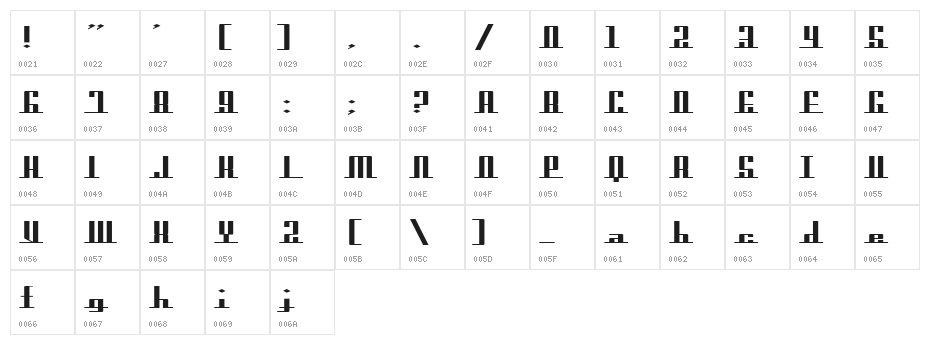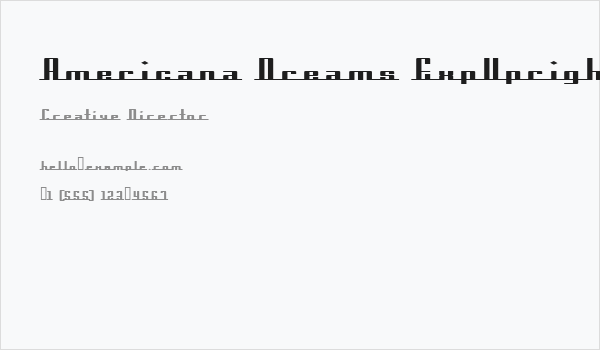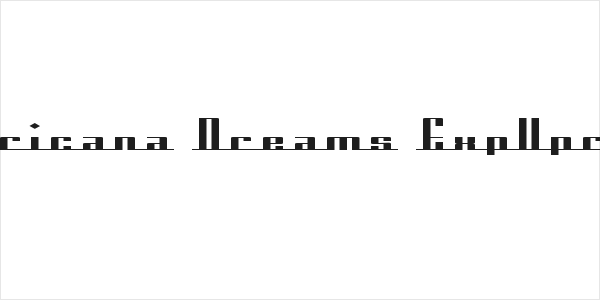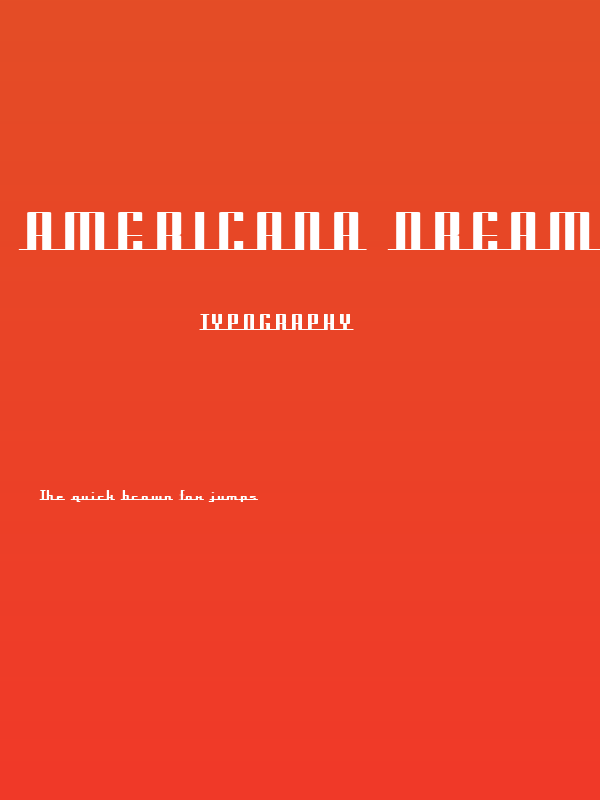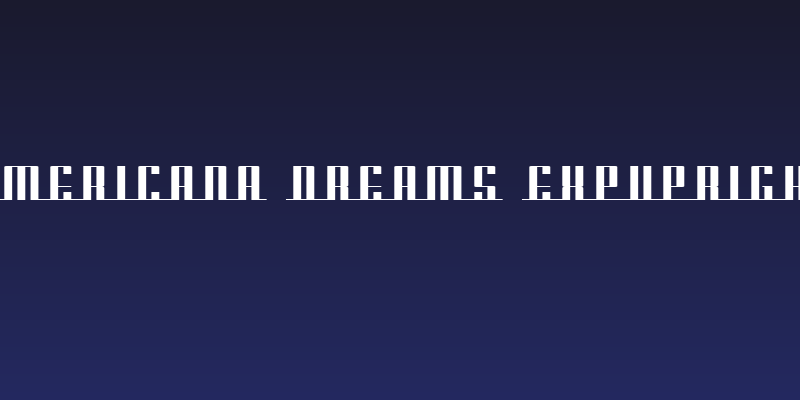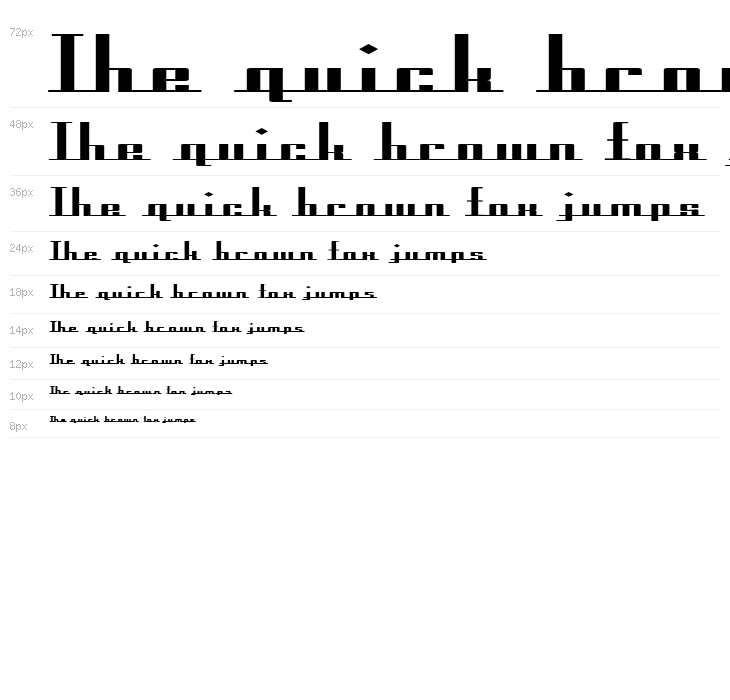
Americana Dreams ExpUpright Font
Americana Dreams ExpUpright Description
This font features a bold and geometric design with a distinctively modern and futuristic aesthetic. The characters are constructed with sharp angles and straight lines, giving them a mechanical and structured appearance. The uppercase letters are tall and narrow, while the lowercase letters maintain a consistent height, creating a uniform look. The numerals and special characters follow the same geometric style, ensuring cohesion across all glyphs. The font's unique style makes it stand out, with a high contrast between the thick and thin strokes, adding to its striking visual impact.
| Proposed Projects | Ideal for branding, posters, and digital media where a modern and bold statement is needed. |